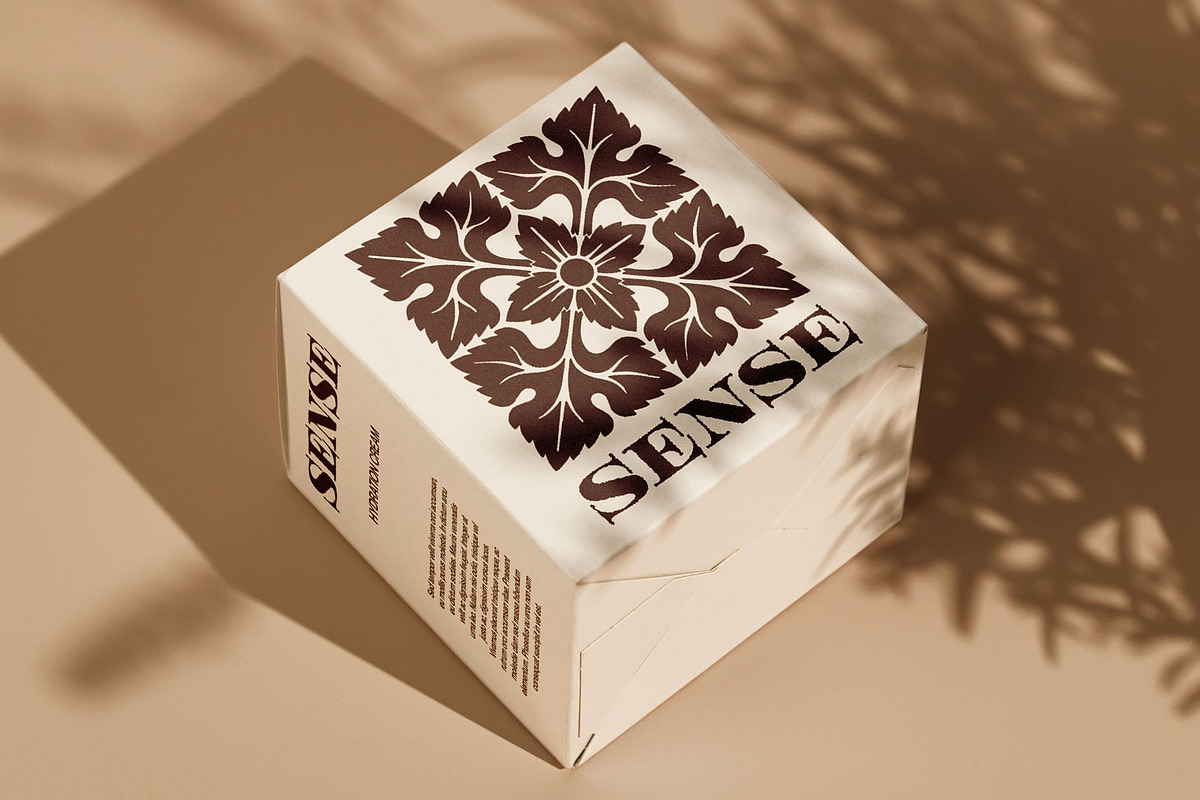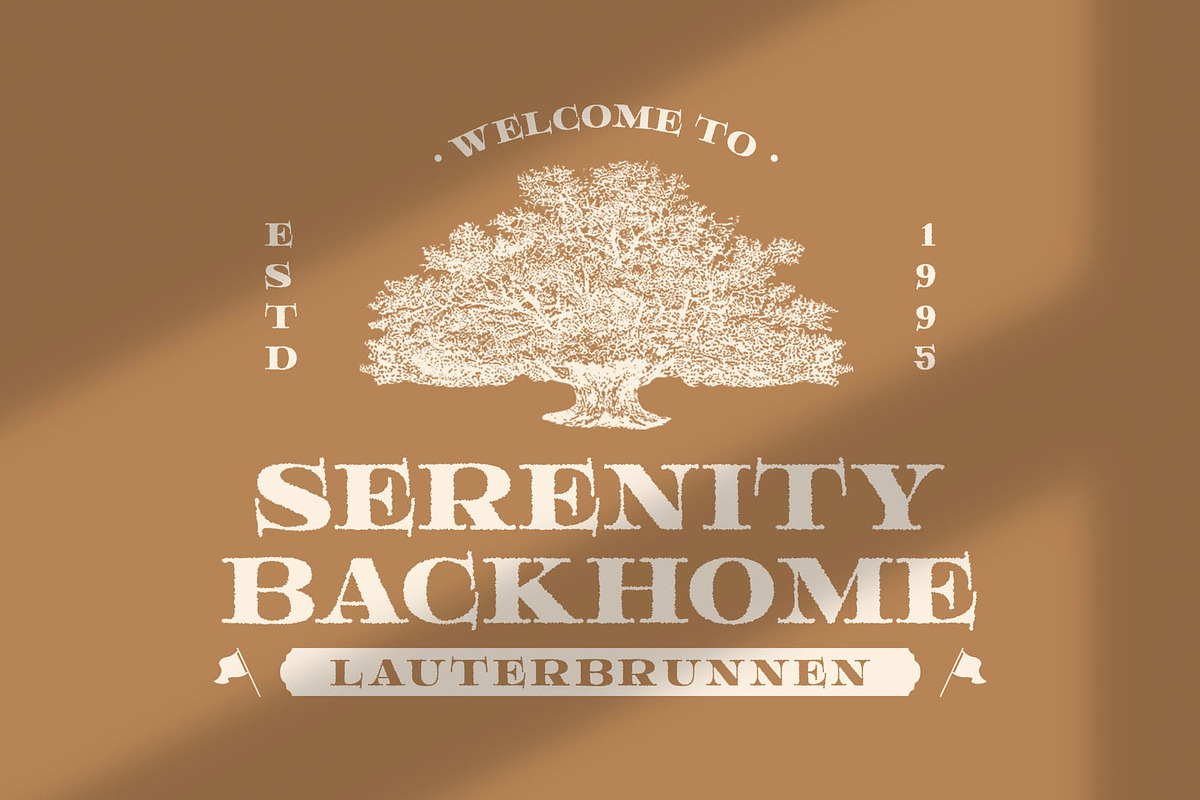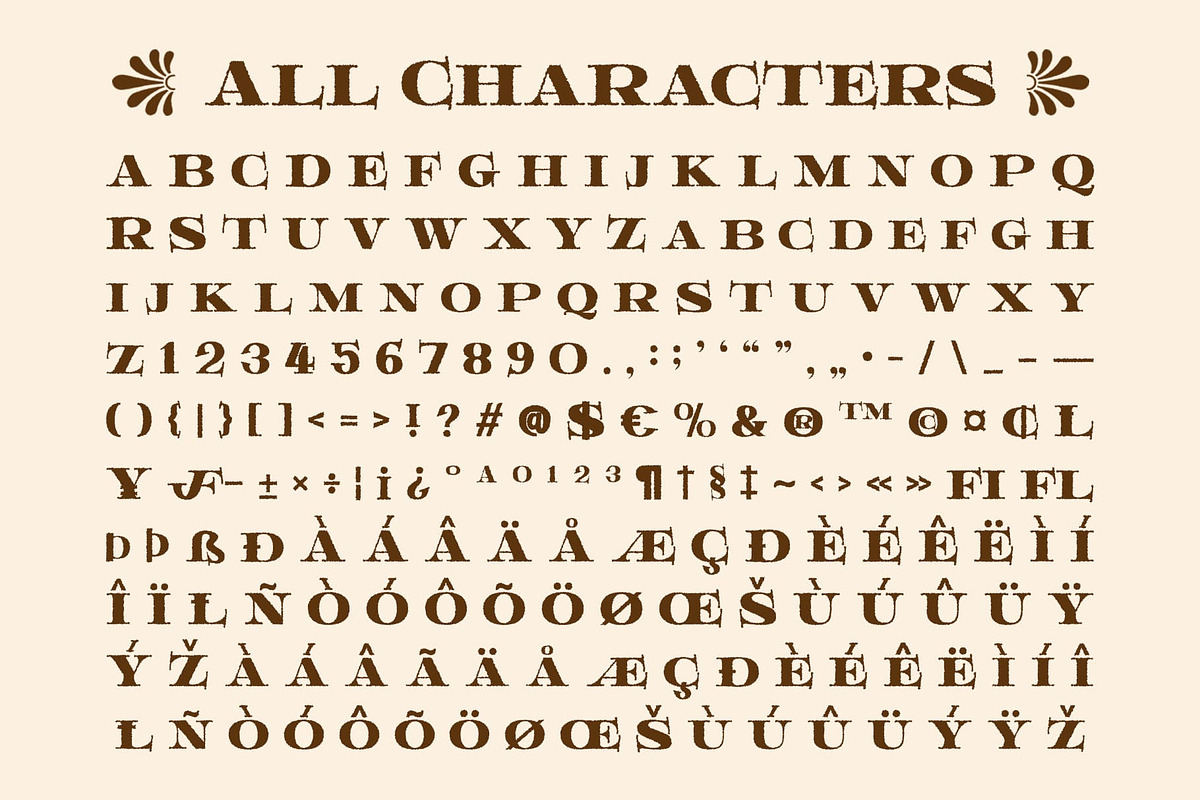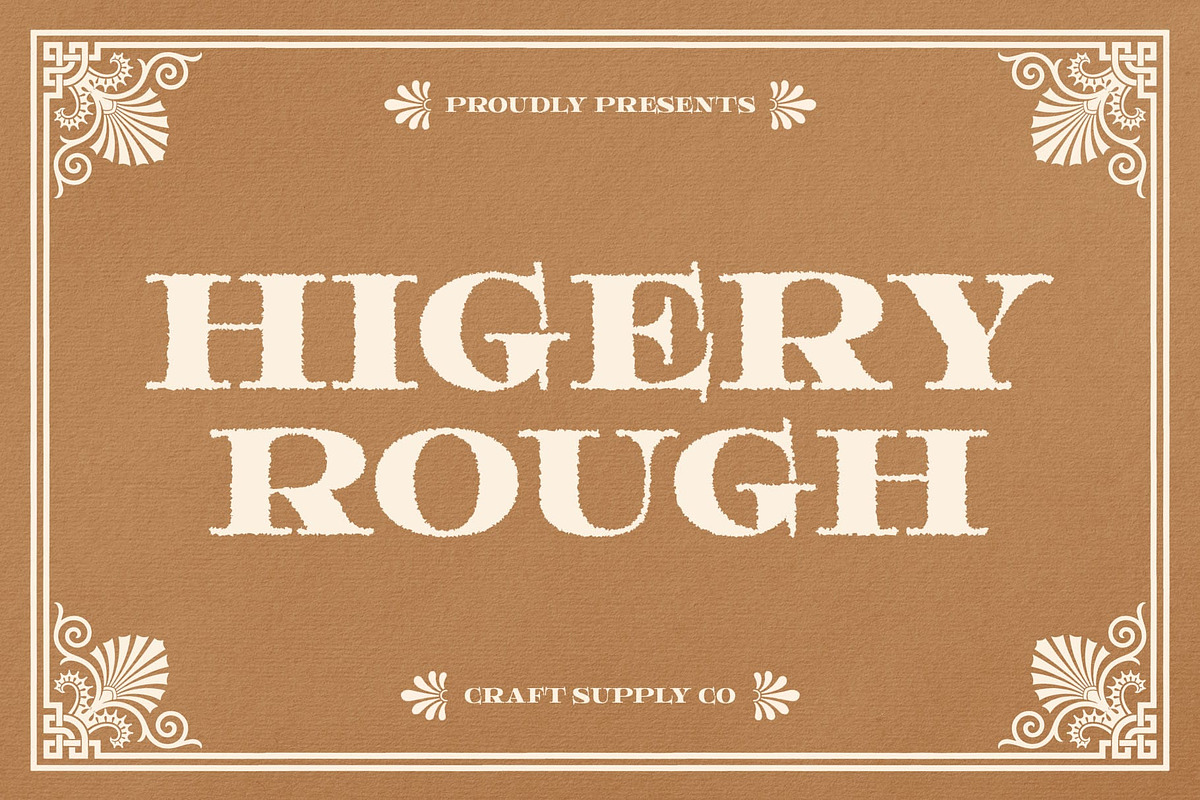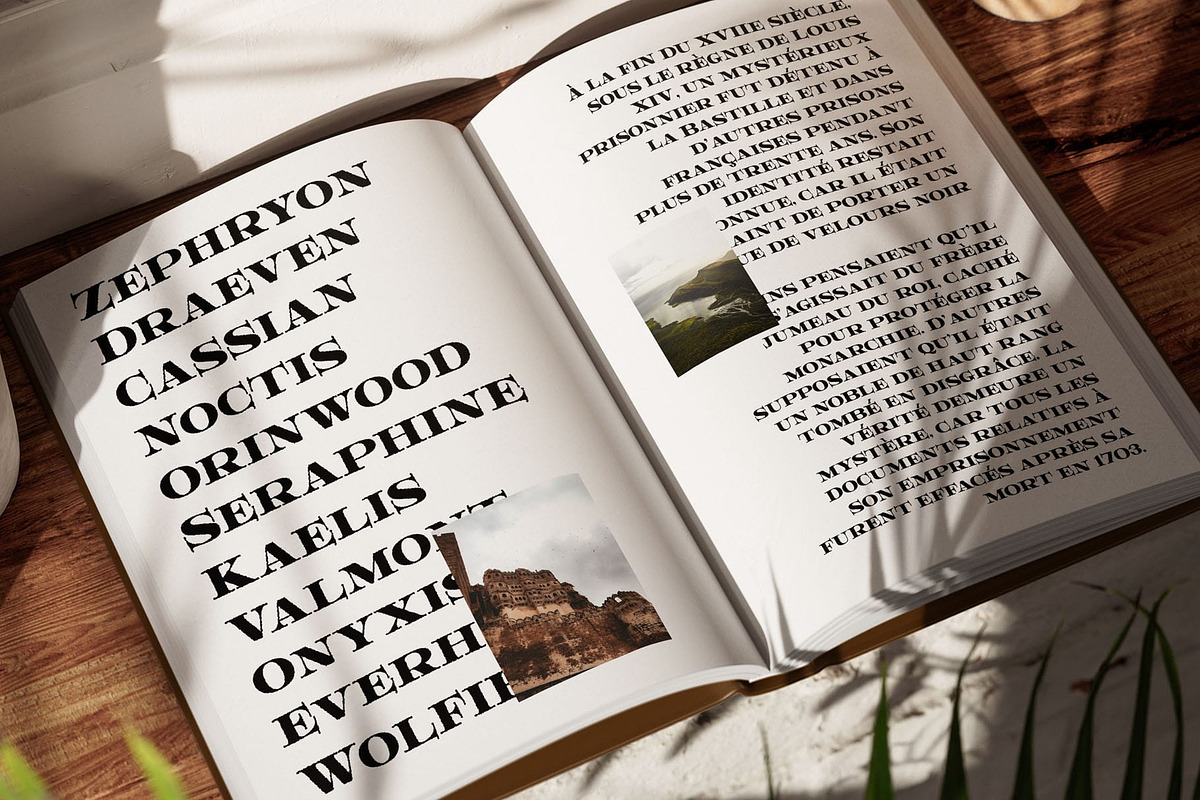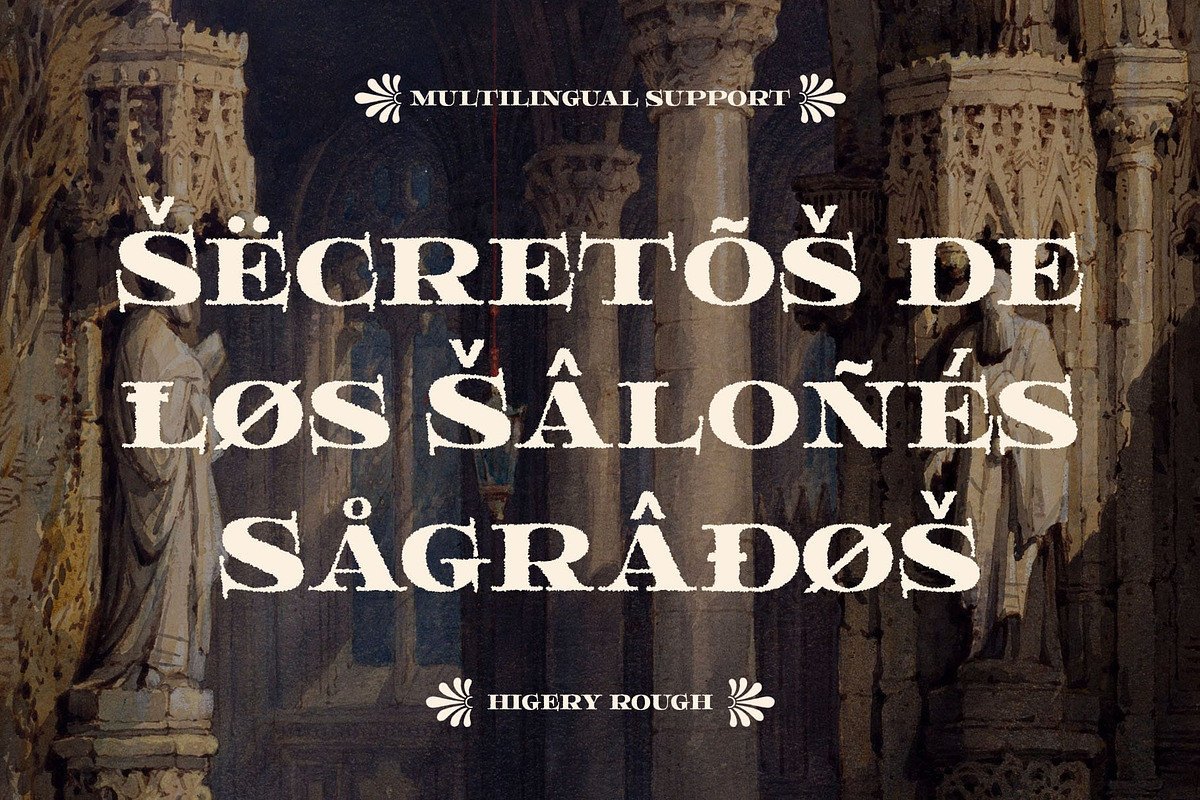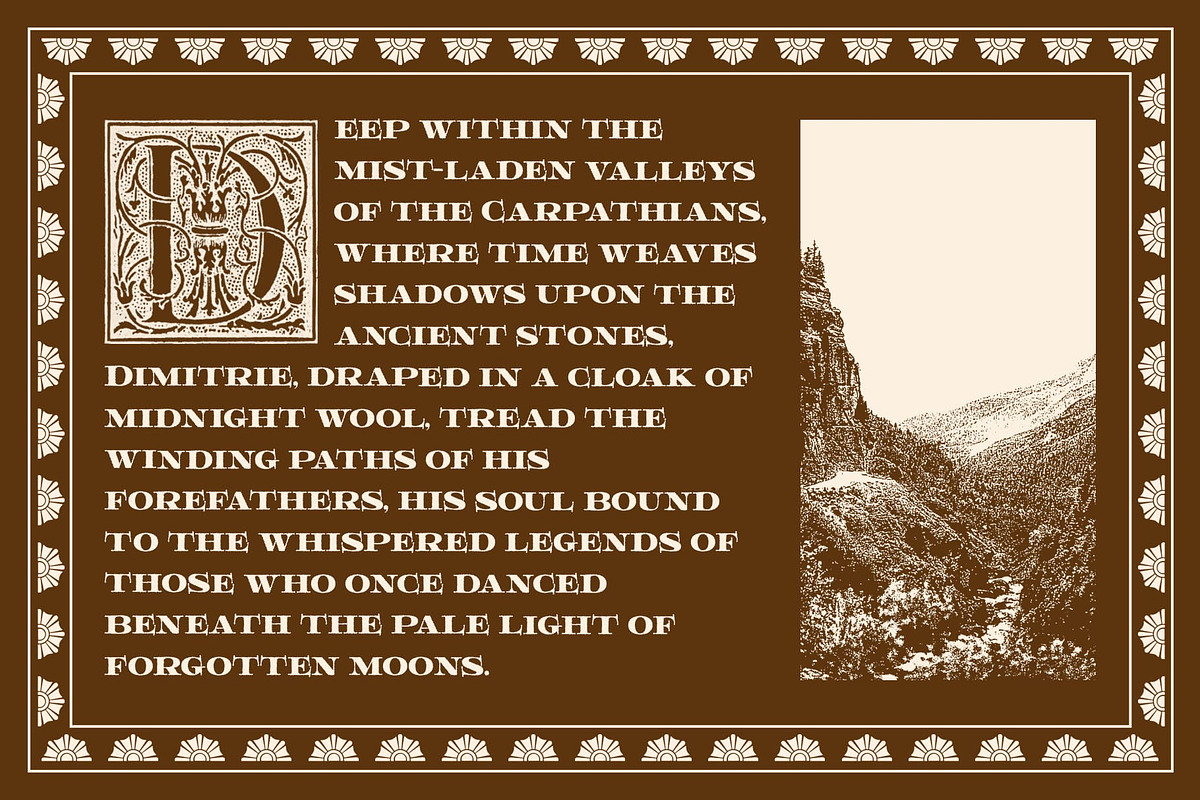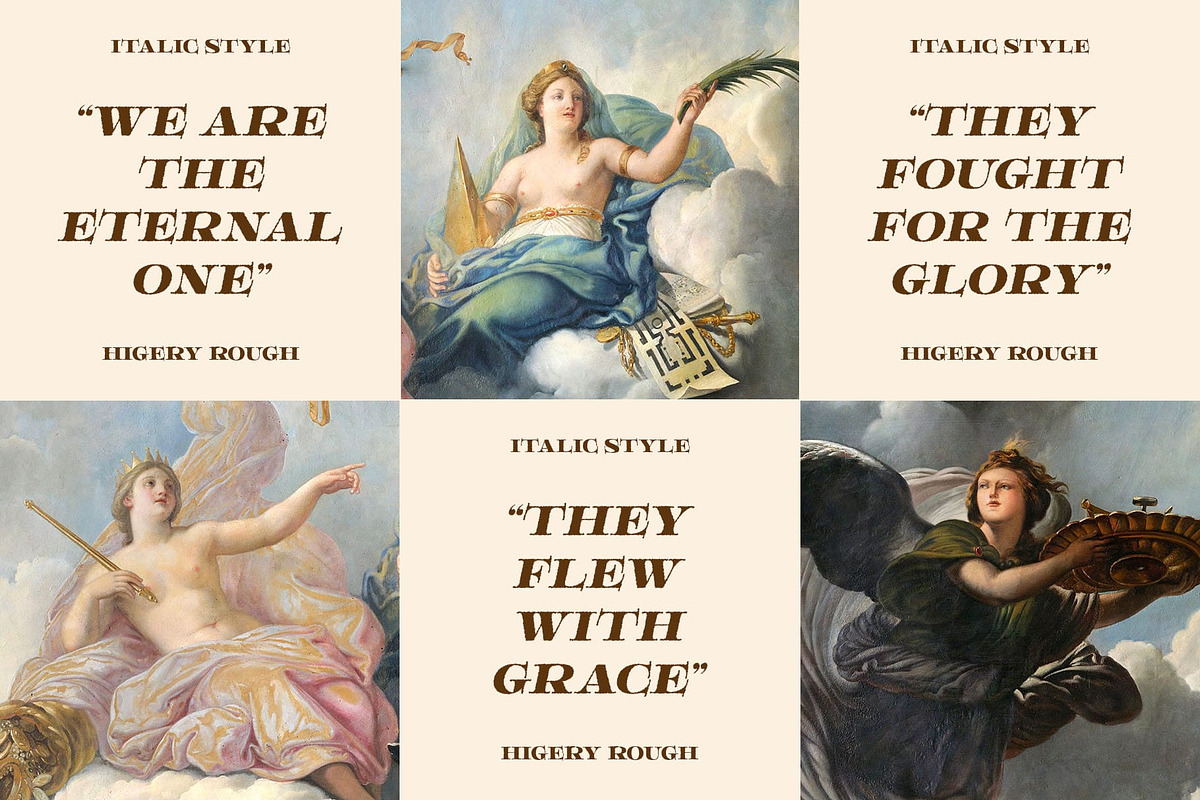
Higery Rough
Higery Rough Font: A Classic Modern Serif with Bold Vintage Character
A Strong and Elegant Serif with a Timeless Appeal Higery Rough is a classic modern serif font that blends bold structure with refined elegance. Designed with a commanding presence, this font balances strength and sophistication, making it perfect for projects that demand a distinctive yet polished aesthetic.
Distinctive Rough Texture for Added Character One of Higery Rough’s standout features is its subtle rough texture, which gives each letter a weathered, slightly distressed look. This unique detailing adds a vintage yet contemporary charm, making it ideal for projects that require a classic aesthetic with a modern twist.
Perfect for Editorial, Branding, and Packaging Designed for versatility, Higery Rough is an excellent choice for luxury magazines, sophisticated branding, and high-end product packaging. It shines in editorial layouts, book covers, posters, and advertising materials, adding a touch of prestige and exclusivity.
Versatile and Impactful for Creative Applications Higery Rough offers classic serif sophistication with a rugged edge, making it perfect for designers seeking a balance between tradition and bold expression. It works seamlessly in both print and digital designs, maintaining its strong presence across various mediums. With its elegant yet edgy personality, Higery Rough is the ideal choice for projects that demand a striking and confident visual identity.